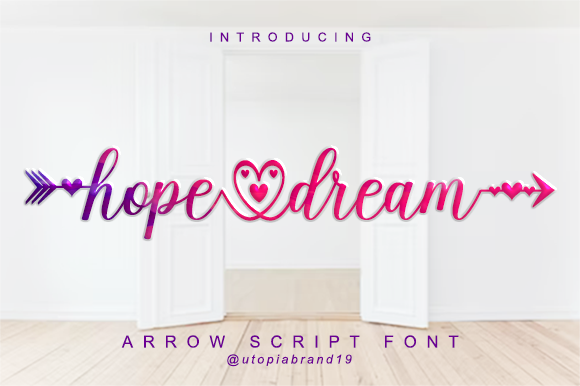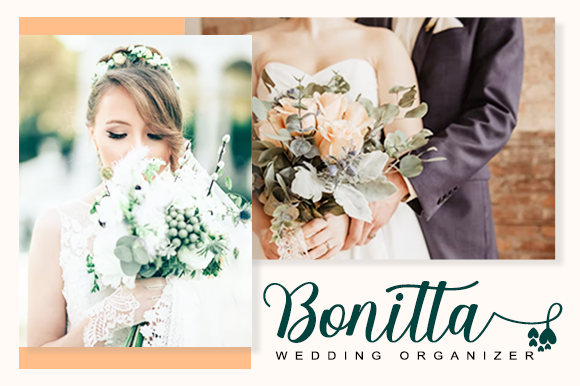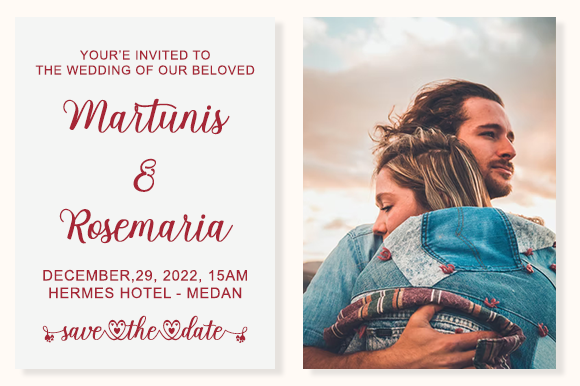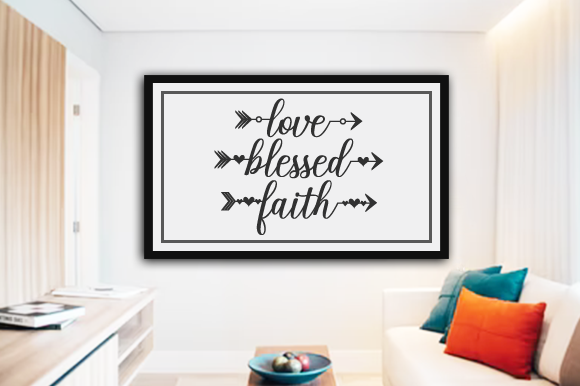
Hope Dream Script Font
About the Hope Dream Script Font
The Hope Dream Script Font is here to transform your projects with its distinctive character and style. Hope Dream Script feels equally charming and elegant. This font is PUA encoded which means you can access all of the glyphs and swashes with ease!
Its elegant charm makes Hope Dream Script ideal for projects requiring a touch of sophistication, such as wedding invitations, logos for beauty brands, or short, impactful headlines. It also works well on packaging for high-end products or in short-form social media graphics. However, its decorative nature makes it unsuitable for body text or lengthy paragraphs; readability would suffer. Avoid using it in user interfaces (UI) where clarity and legibility are paramount.
For effective pairings, consider contrasting Hope Dream Script with a clean sans-serif like Montserrat for a modern feel, or a classic serif such as Garamond for a more timeless aesthetic. A geometric sans-serif such as Futura would create a strong juxtaposition, highlighting the script’s organic quality. These pairings provide balance and prevent visual overload.
The overall personality of Hope Dream Script is sophisticated and romantic, yet approachable. It conveys a sense of gentle luxury and is best suited for brands or projects that aim for a feeling of timeless elegance and subtle charm.